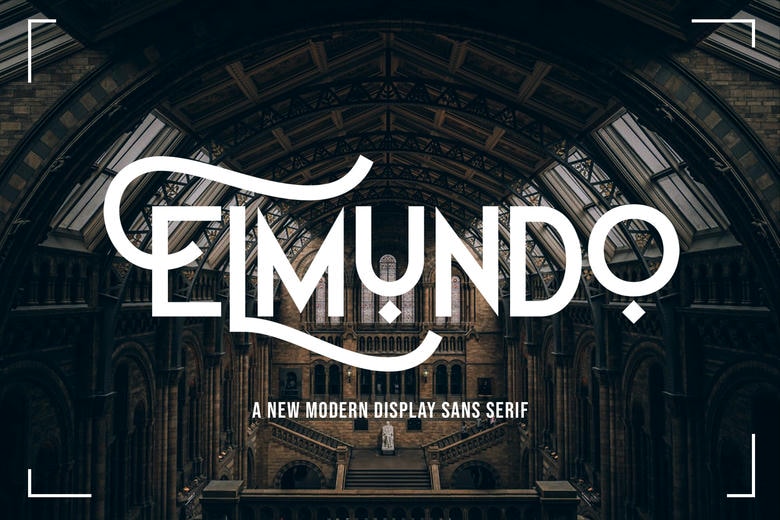
Elmundo Font
Elmundo Font is a modern sans-serif typeface that stands out with its bold, clean look. Its balanced proportions and smooth curves give it a strong presence, while still keeping text clear and easy to read.
Its modern style works well for eye-catching headlines and creative branding. Elmundo is a great choice for logos, posters, or digital content, giving your designs a fresh and professional look.
Elmundo Sans Serif Font